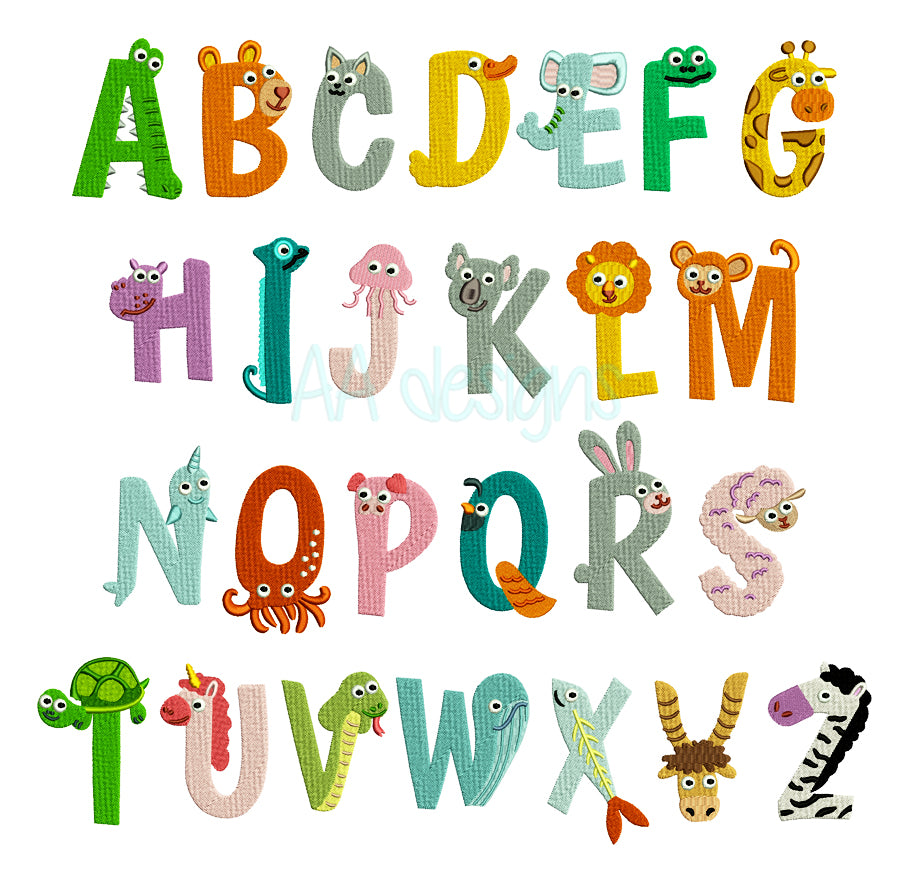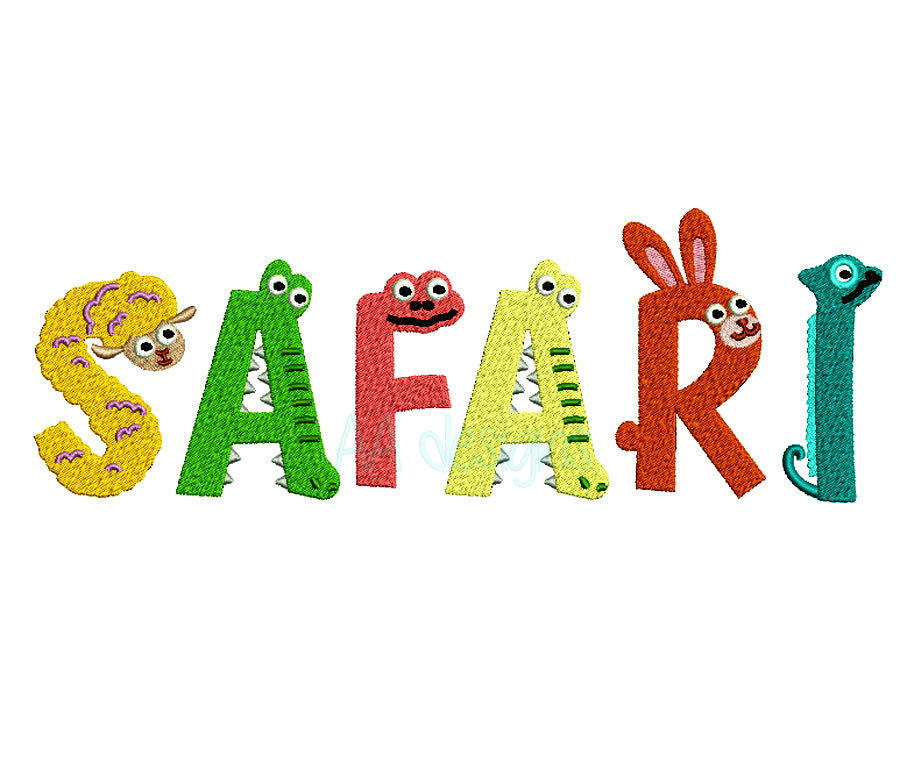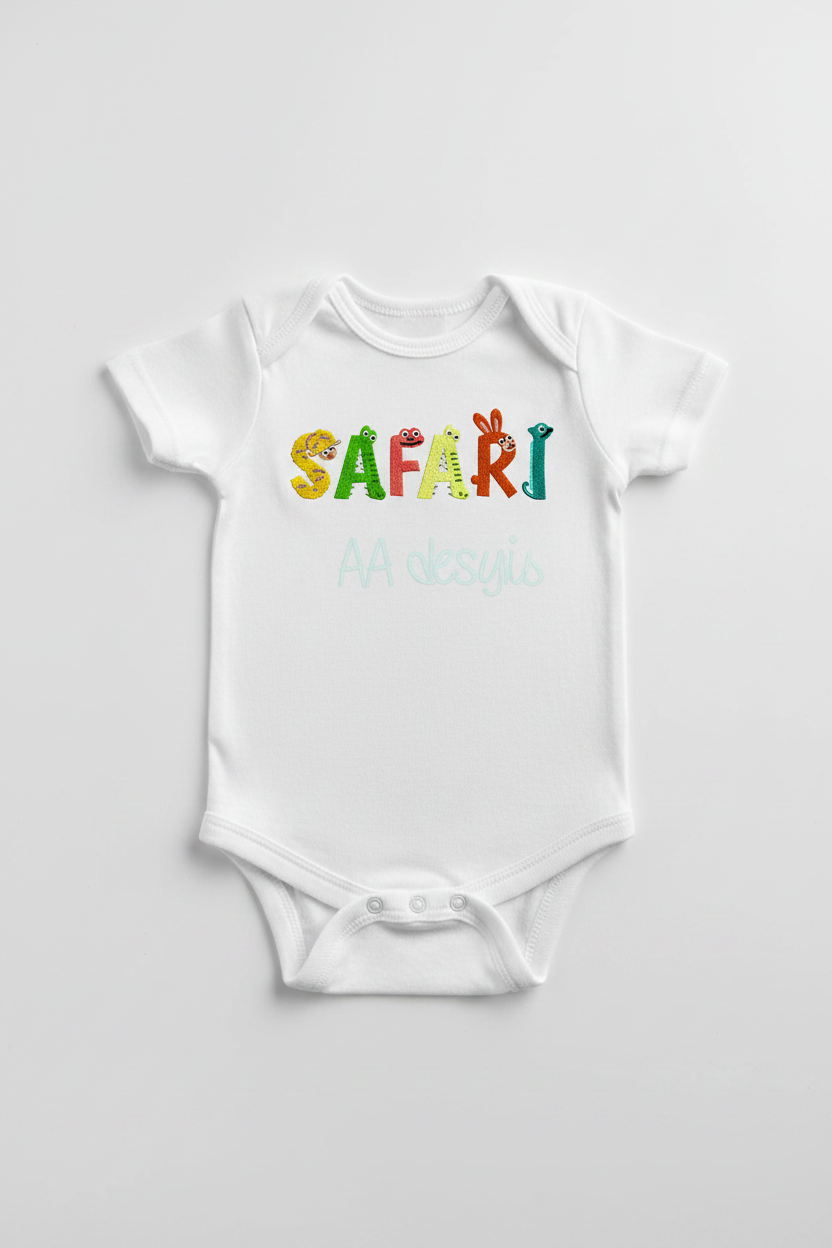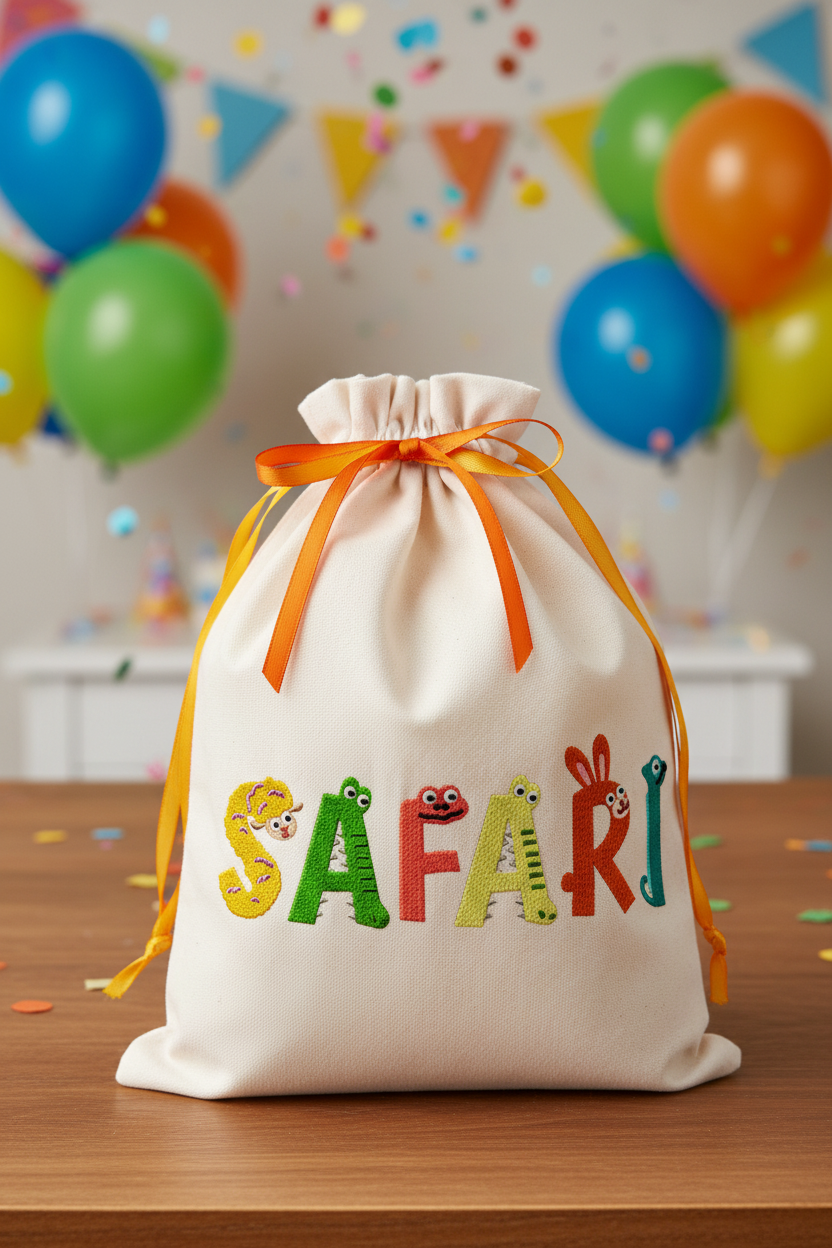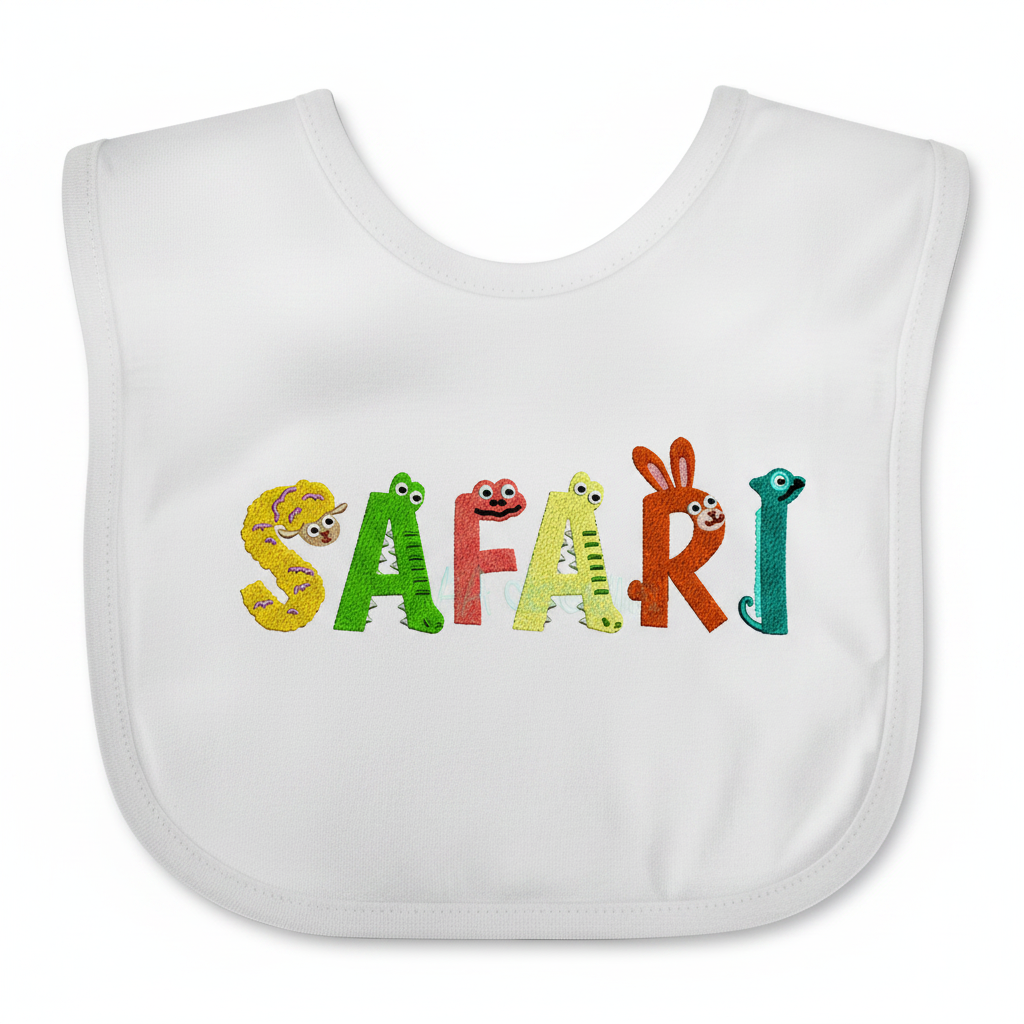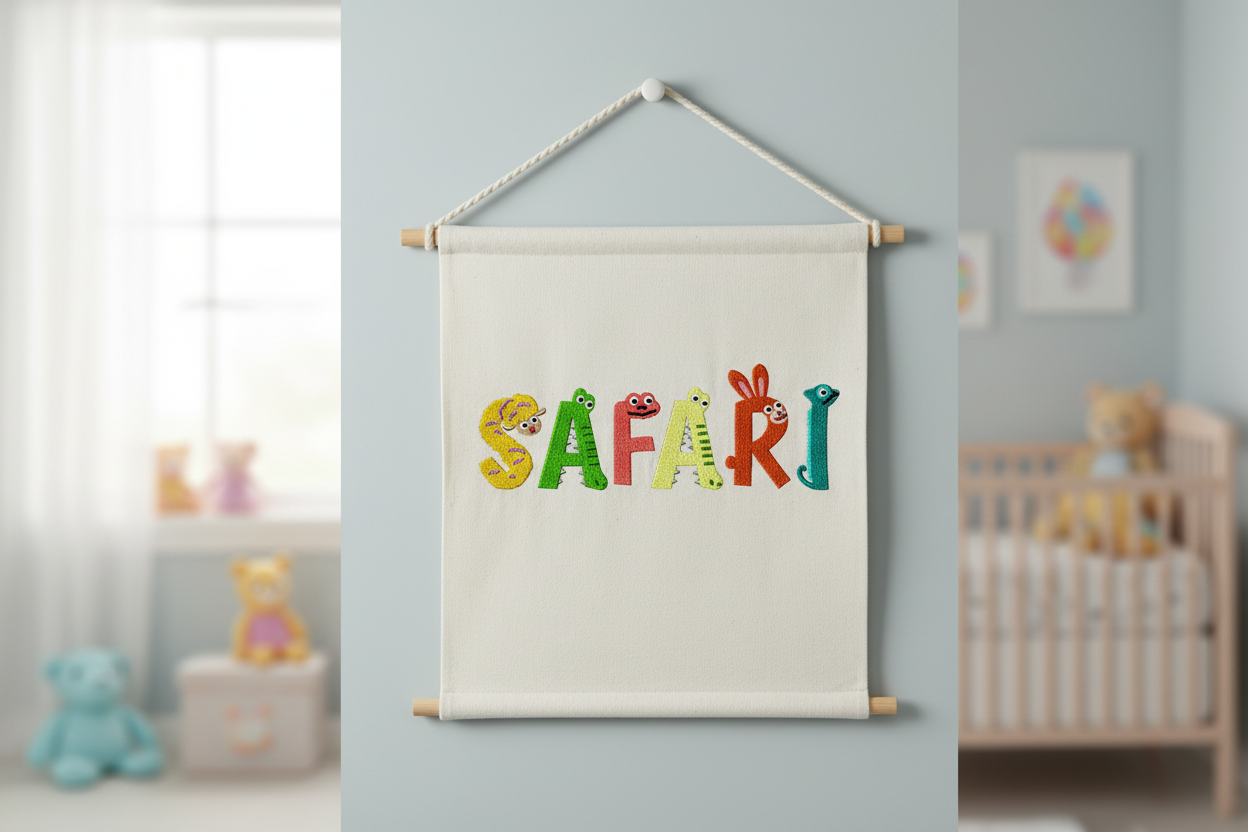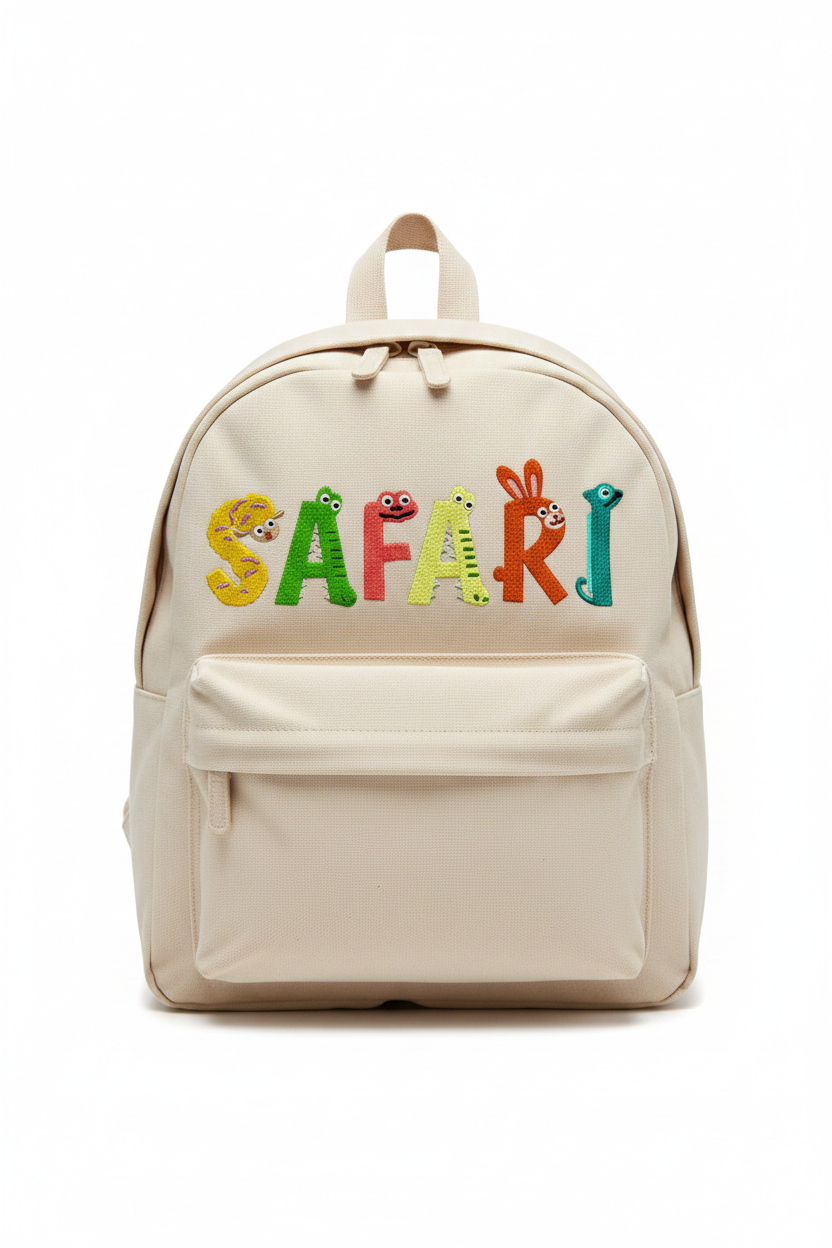
Safari embroidery digital font. Machine embroidery alphabet with cute animal characters. BX included.
Safari Embroidery Digital Font
Let your little one's name come alive with the adorable Safari font — a playful machine embroidery alphabet where every letter is a cute animal character, bursting with color and personality!
Perfect for personalizing baby onesies, kids' backpacks, nursery décor, bibs, and birthday gifts that will make everyone smile.
- Style: Fill stitch with decorative animal characters
- Includes: Full alphabet (A–Z), numbers
- Perfect for: Baby gifts, kids' clothing, nursery décor, backpacks, bibs